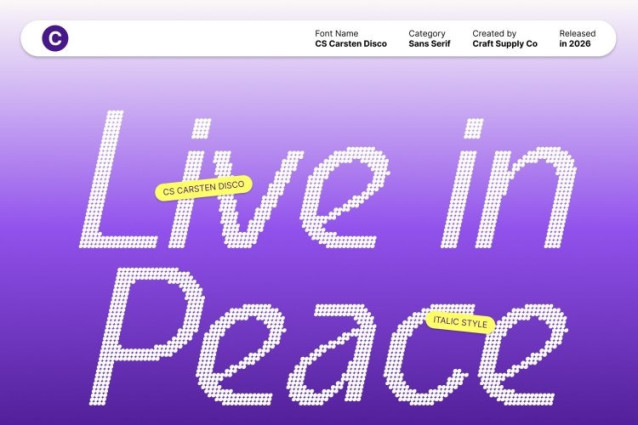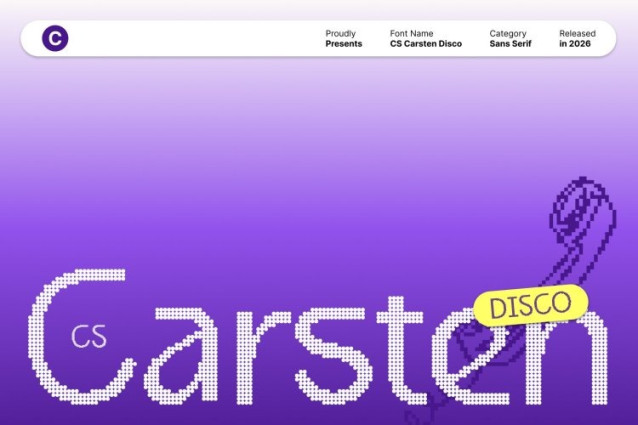
CS Carsten Disco Font This is a hybrid sans serif font that blends modern minimalism, subtle experimentation, and clean professionalism into a versatile typeface. Its thoughtfully constructed letterforms move between refined tradition and contemporary expression, creating a visual voice that feels calm, confident, and effortlessly modern.
Minimalist Structure with Modern Disco Nuance
Built on a clean and controlled foundation, this font introduces gentle experimental details that add freshness without disrupting clarity. The disco influence appears through smooth rhythm, polished shapes, and a soft visual glow bringing understated glamour and energy while preserving a professional, composed aesthetic.
Elegant Yet Relaxed Visual Character
This font bridges elegant typography and relaxed modern design. Its balanced proportions and smooth flow communicate trust, approachability, and refinement. This makes the font suitable for both formal environments and creative contexts where a lighter, more contemporary tone is desired.
Perfect for Branding, Editorial, and Digital Interfaces
Designed for flexibility, this font works beautifully in branding systems, editorial layouts, websites, and digital products. Its refined personality with a subtle modern sparkle makes it ideal for lifestyle brands, creative studios, corporate identities, and modern businesses seeking a distinctive yet polished typographic voice.